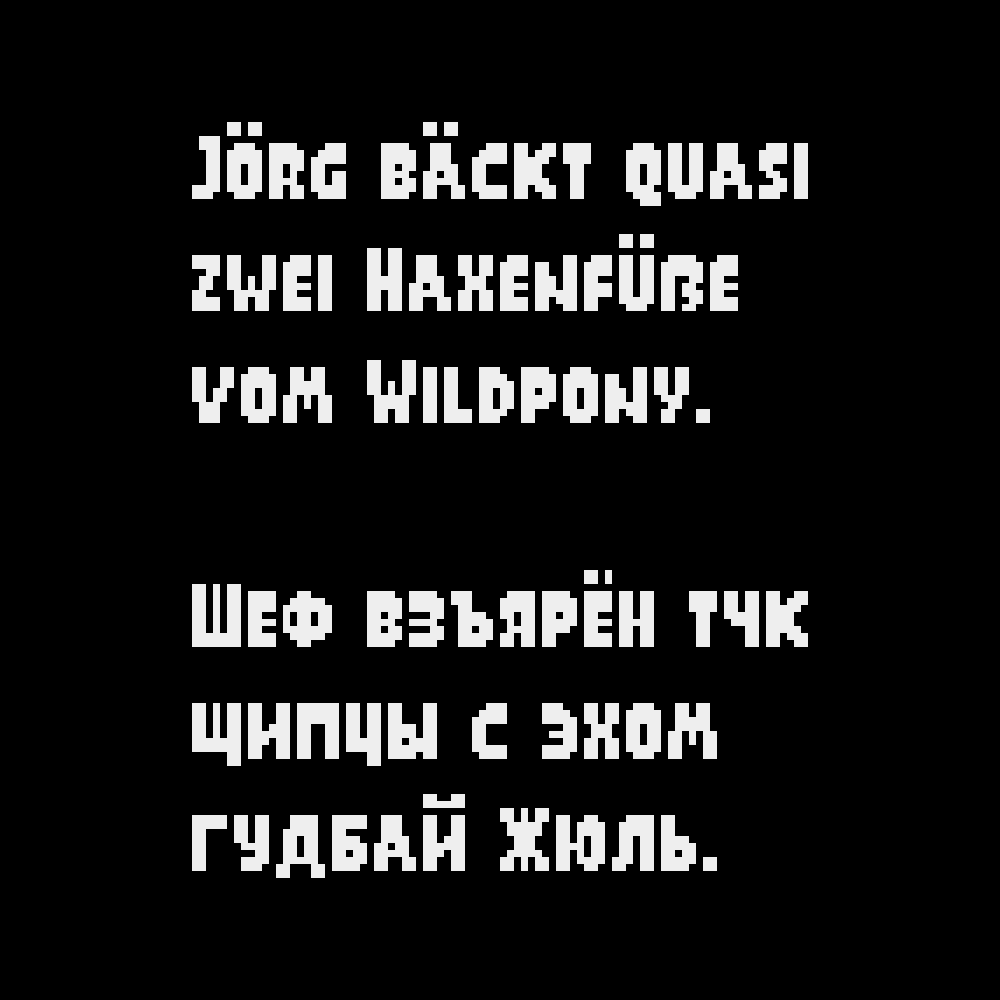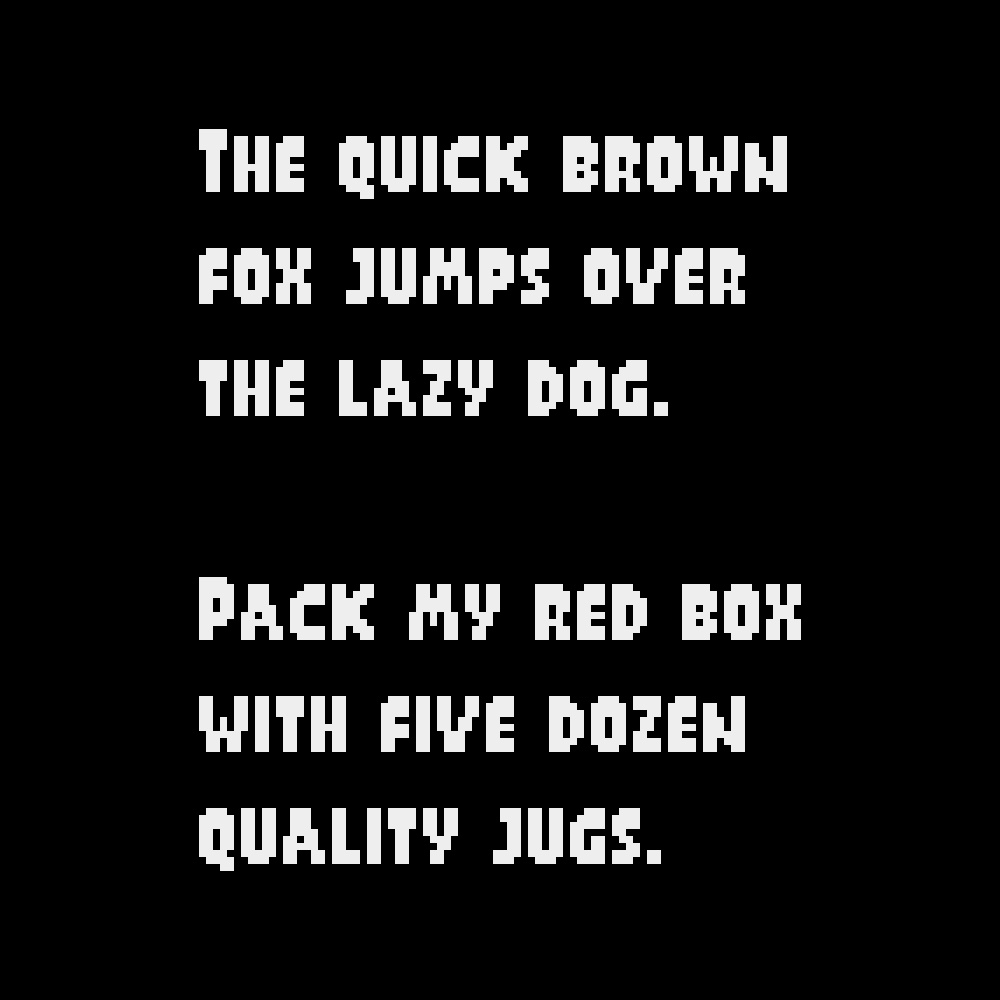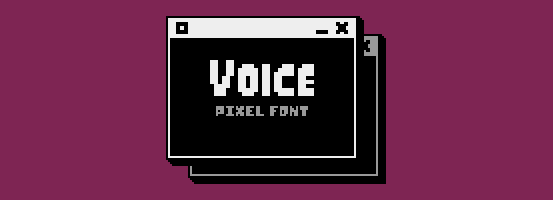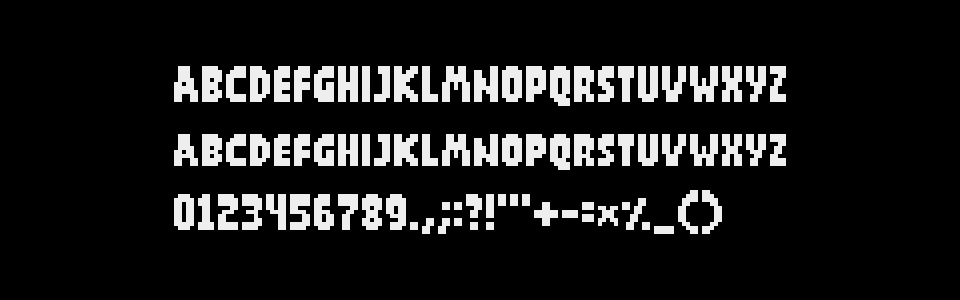
A downloadable pixel font
Voice is a lively, comic-like, smallcaps, 9px tall pixel font!
Full Character Set:
ABCDEFGHIJKLMNOPQRSTUVWXYZ abcdefghijklmnopqrstuvwxyz 0123456789.,;:?!"'+-=*%_() []{}~#&@©®™°^`|/\<>…€$£¢¿¡“”‘’«»‹›„‚·• ÀÁÂÄÃÅĄÆÇĆÐÈÉÊËĘĞÌÍÎÏİŁÑŃÒÓÔÖÕŐØŒŚŞẞÞÙÚÛÜŰÝŸŹŻàáâäãåąæçćðèéêëęğìíîïıłñńòóôöõőøœśşßþùúûüűýÿźżАБВГҐДЕЁЄЖЗИІЇЙКЛМНОПРСТУФХЦЧШЩЪЫЬЭЮЯабвгґдеёєжзиіїйклмнопрстуфхцчшщъыьэюя
Supported languages:
English, French, Italian, German, Spanish, Portuguese, Danish, Swedish, Norwegian, Icelandic, Hungarian, Polish, Turkish*, Russian, Ukrainian…